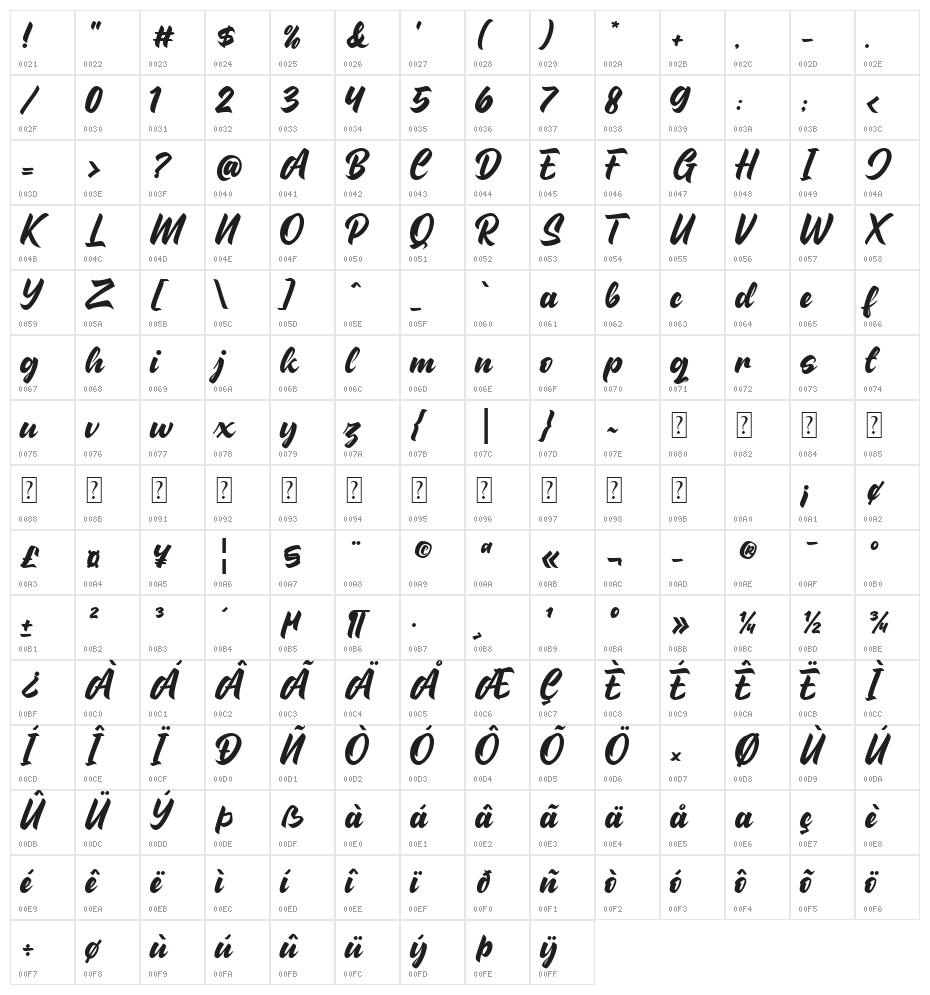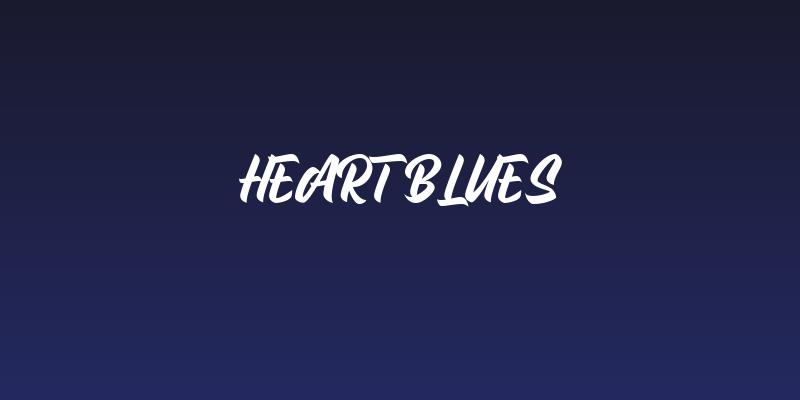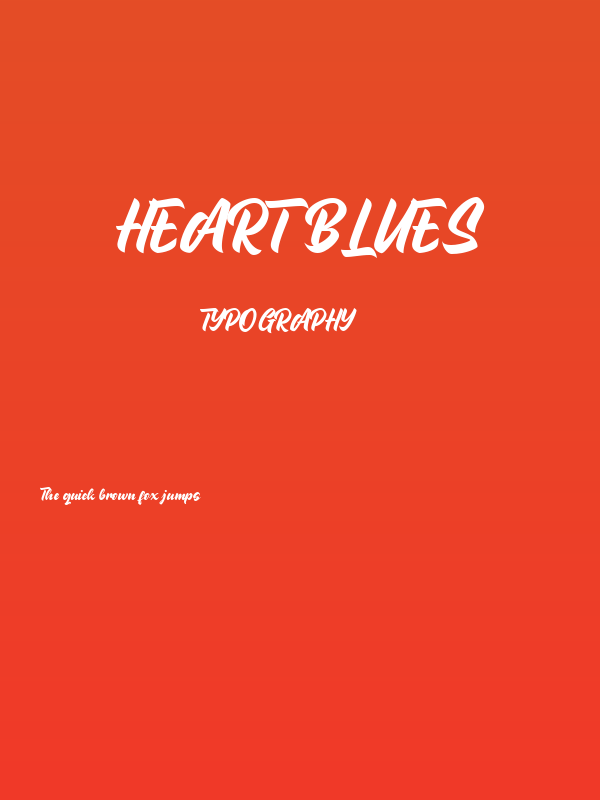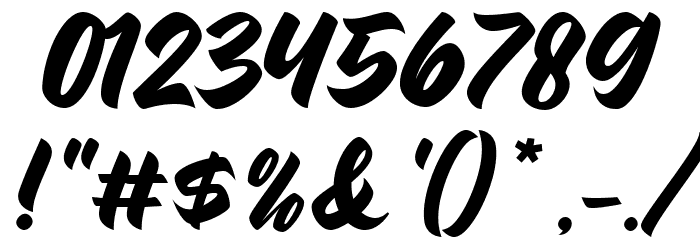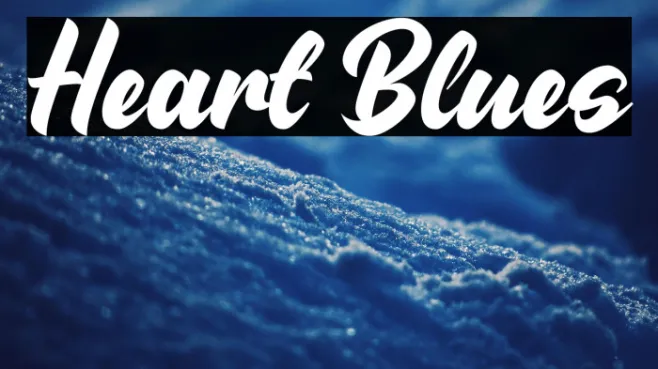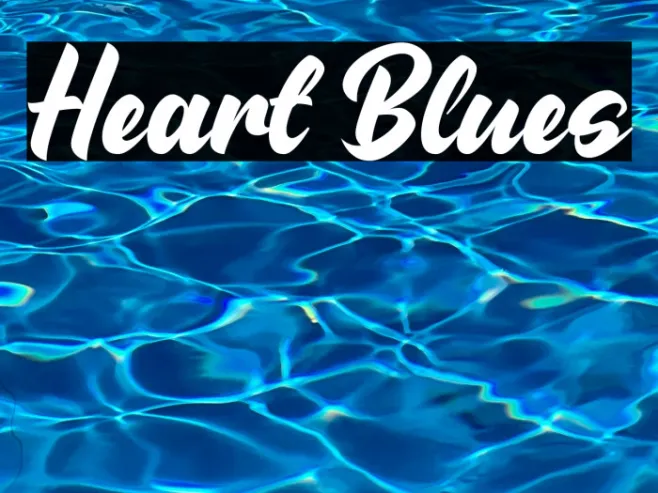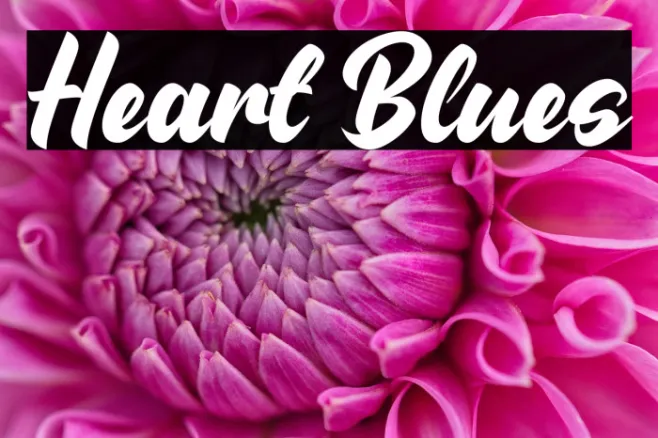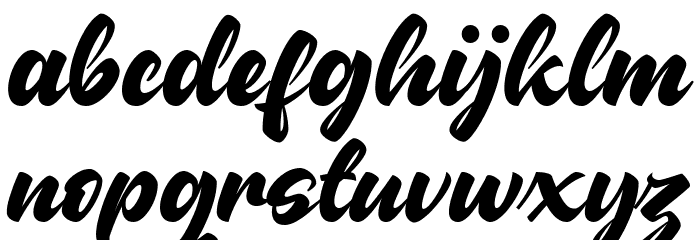
Heart Blues Font
Heart Blues Description
This font exudes a bold and expressive style, characterized by its flowing, cursive script that captures a sense of movement and dynamism. The letters are crafted with thick strokes, providing a strong visual impact, while maintaining a smooth and elegant flow. The uppercase and lowercase letters are well-balanced, offering a harmonious blend that is both artistic and legible. The numerals and special characters complement the overall design, ensuring versatility across various applications. Its bold presence makes it suitable for projects that require a touch of creativity and flair.
| Proposed Projects | Ideal for branding, logo design, invitations, and creative headlines. |